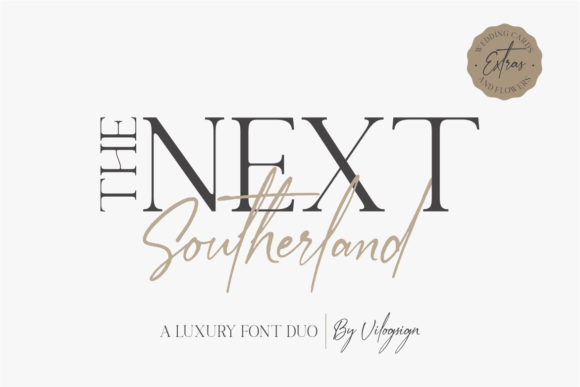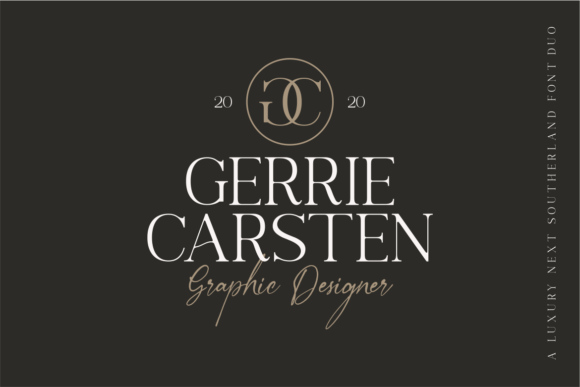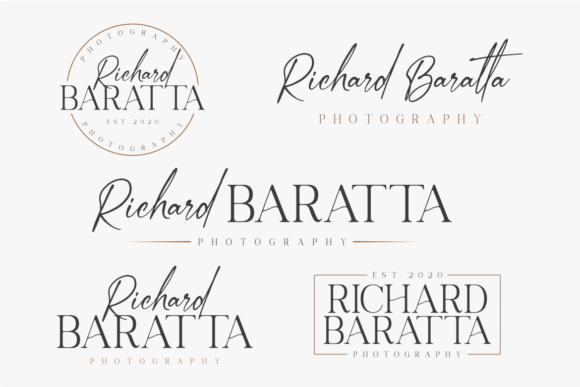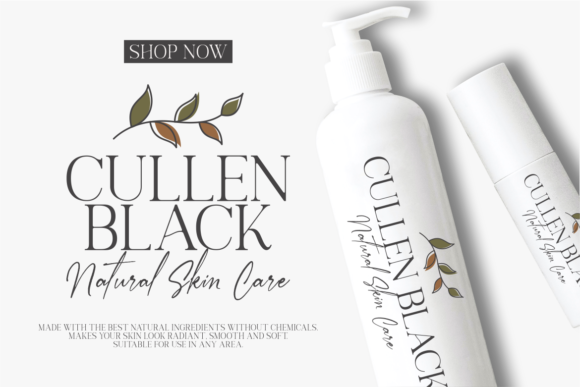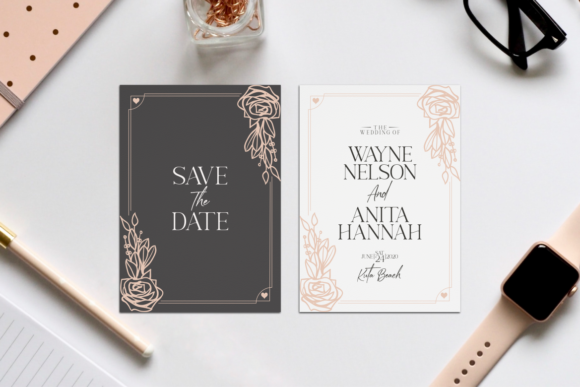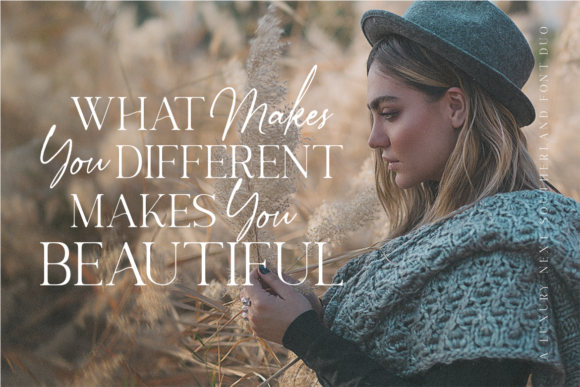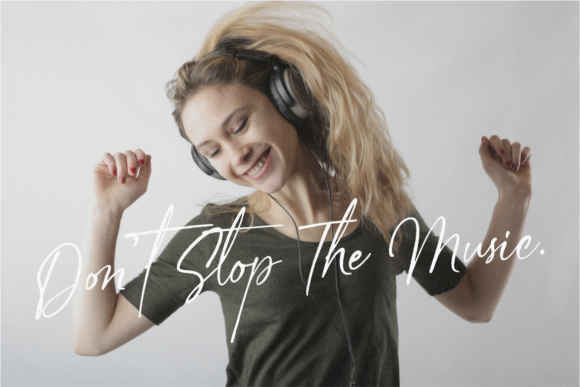
The Next Southerland Font
The Next Southerland is a match made in heaven duo font (handwritten and serif), perfectly complementing each other’s style. Combining these two fonts on your next design will give it an elegant and timeless feel. The Next Southerland has the potential to become a true favorite!